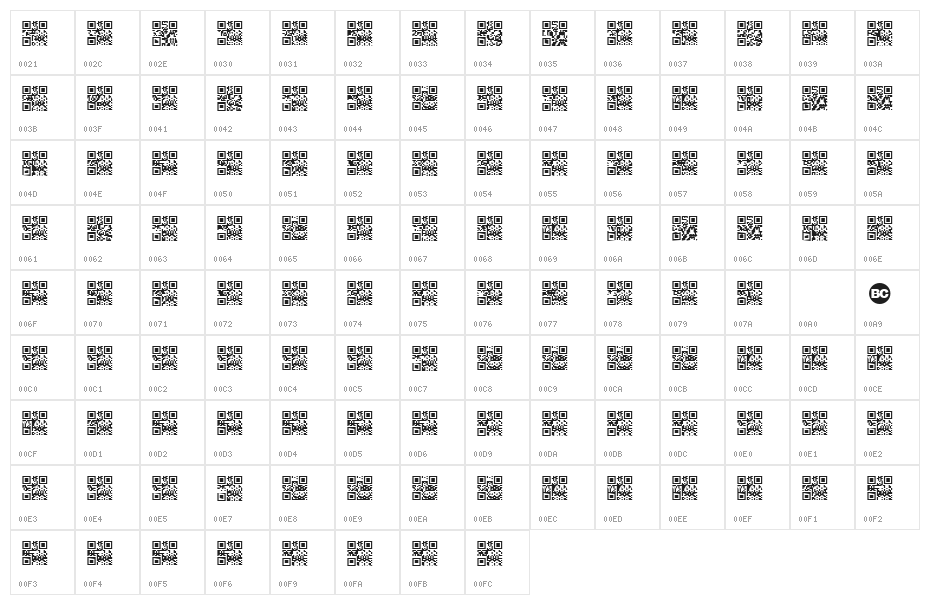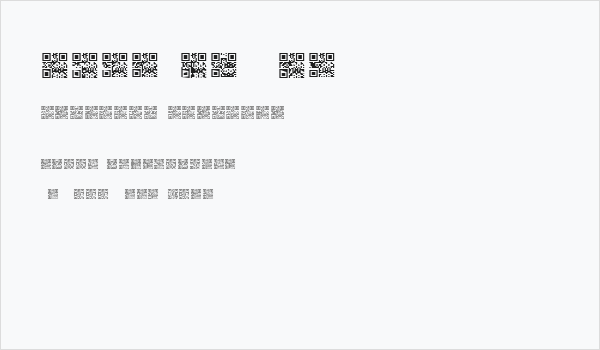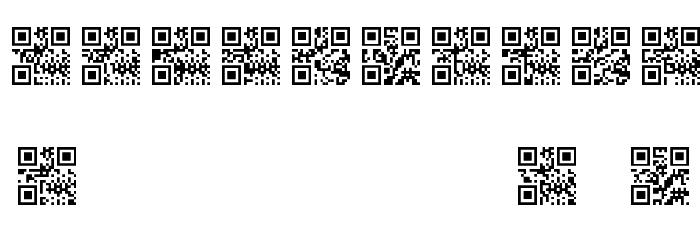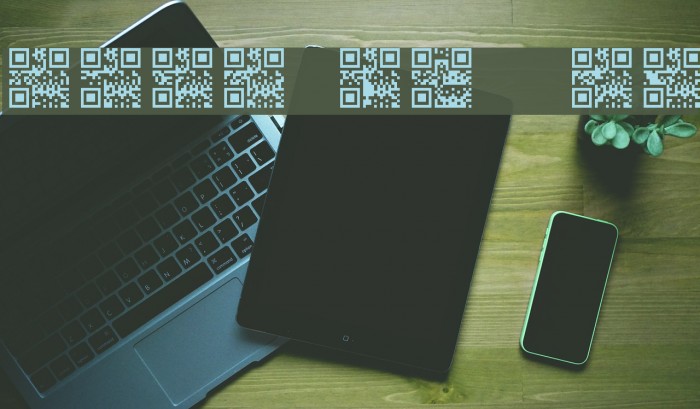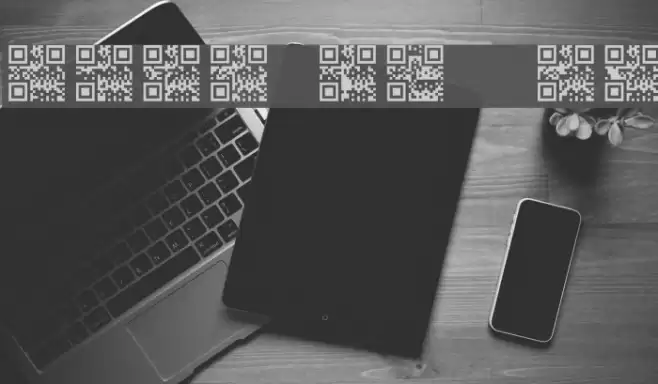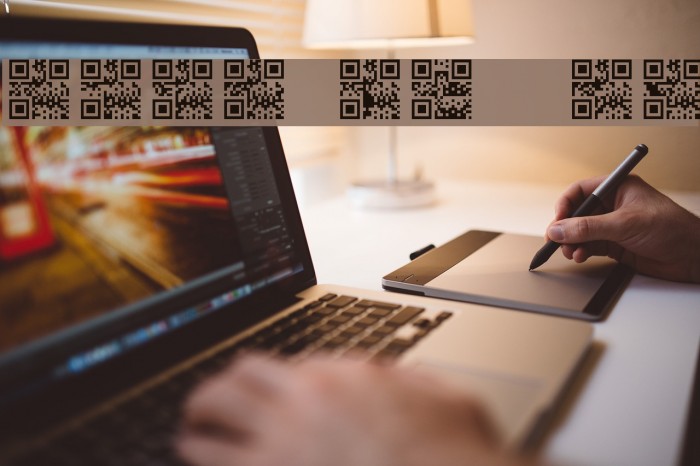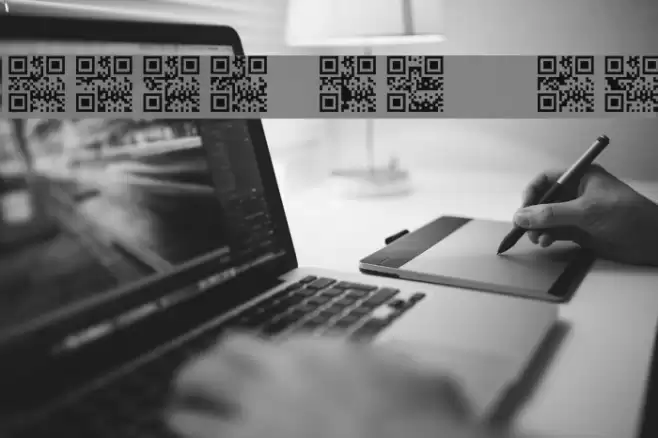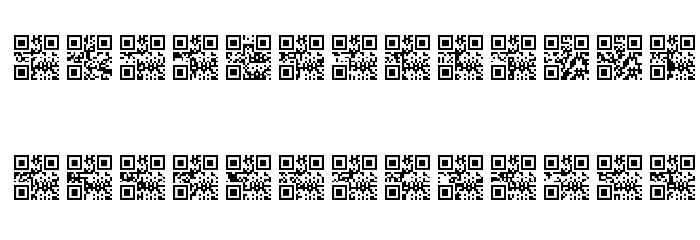
Scan me QR Font
Scan me QR Description
A decorative font where each character is represented as a unique QR code, creating a pixelated, modular appearance. The glyphs are uniform in size and spacing, with high contrast between the black QR code elements and the white background.
| Overall Style | Modern, Futuristic, Decorative |
| Use Case | Logos, Headlines, Posters, Digital Art, Themed Events |
| Proposed Projects | Tech branding, futuristic posters, digital art, event invitations, novelty merchandise, escape room puzzles. |